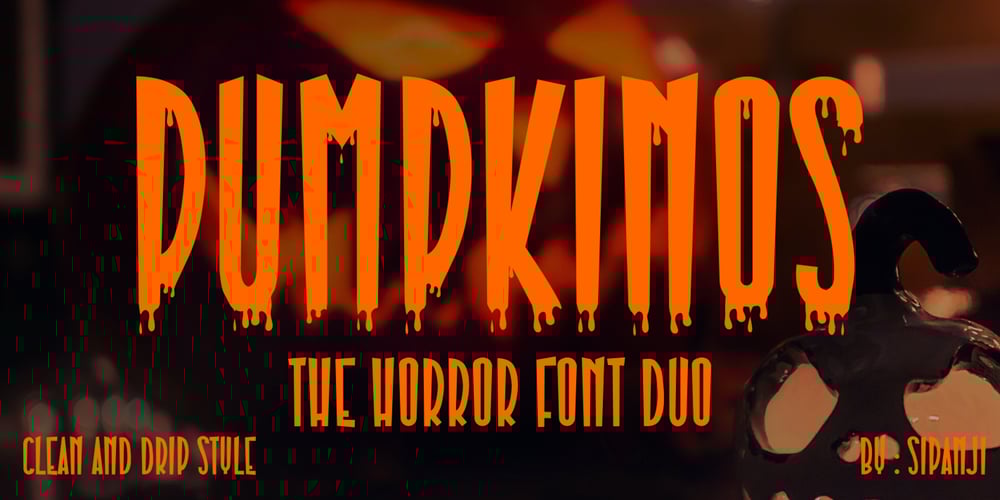
Pumpkinos Horror
Pumpkinos Horror font
Pumpkinos Horror Font Family was designed by Sipanji and published by Sipanji21. Pumpkinos Horror contains 2 styles and family package options. Pumpkinos is an incredibly unique horror display font. Add this font to your favorite Halloween themed ideas and notice how it makes them come alive. Pumpkinos is perfect for posters, packaging, banners, advertising, apparel, and more.